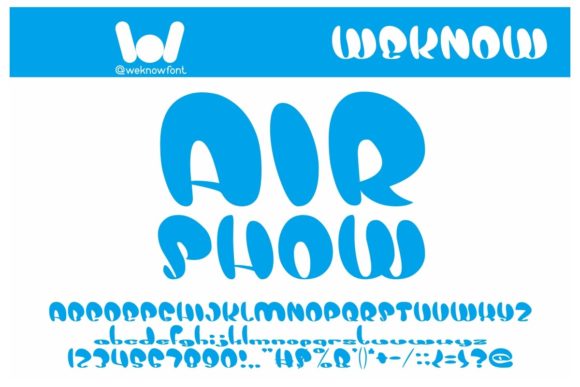
The Ultimate Guide to Airshow Font: Elevate Your Designs with a Cool, Bubbly Twist
I’ll never forget the design project that led me to discover Airshow Font. I was working on a fun, modern poster for a local airshow event, and I was struggling to find the perfect font that captured the playful, adventurous spirit of the occasion. That’s when I stumbled upon Airshow Font, and it instantly became the star of the show! ✨
Airshow is a cool, bubbly, and uniquely lettered display font that has a modern yet whimsical style. It will undoubtedly immerse your designs into a cool world, making it perfect for designers, crafters, and creative hobbyists looking to add a touch of excitement to their projects.
An Honest Review of Airshow Font
What I Love About Airshow Font
- ✨ Unique and quirky lettering style that’s sure to grab attention
- ✅ Modern and whimsical feel that’s perfect for creative projects
- 💥 Highly versatile and can be used for a wide range of designs, from posters to social media graphics
- 🎉 Excellent for headlines, titles, and short text passages
While Airshow Font is an amazing addition to any design project, there are a few things to keep in mind: 🤔
- ⚠️ May not be suitable for body text or long paragraphs, as it’s primarily designed for display purposes
- ⚠️ Some characters may not be suitable for use at very small sizes, so be sure to test it out before finalizing your design
One of the best things about Airshow Font is its OpenType features and glyphs. With Airshow Font, you can access a range of stylistic alternates, swashes, and other glyphs to add visual interest to your designs.
The Backstory Behind Airshow Font
Airshow Font was designed with the intention of capturing the excitement and energy of airshows and other high-flying events. The designer wanted to create a font that was both modern and whimsical, with a unique lettering style that would grab attention and add a touch of fun to any design.
Q: What type of projects is Airshow Font best suited for?
A: Airshow Font is perfect for creative projects that need a modern, whimsical touch, such as posters, social media graphics, and headlines.
Q: Is Airshow Font easy to read?
A: Airshow Font is designed primarily for display purposes, so it’s best used for headlines, titles, and short text passages. It may not be suitable for body text or long paragraphs.